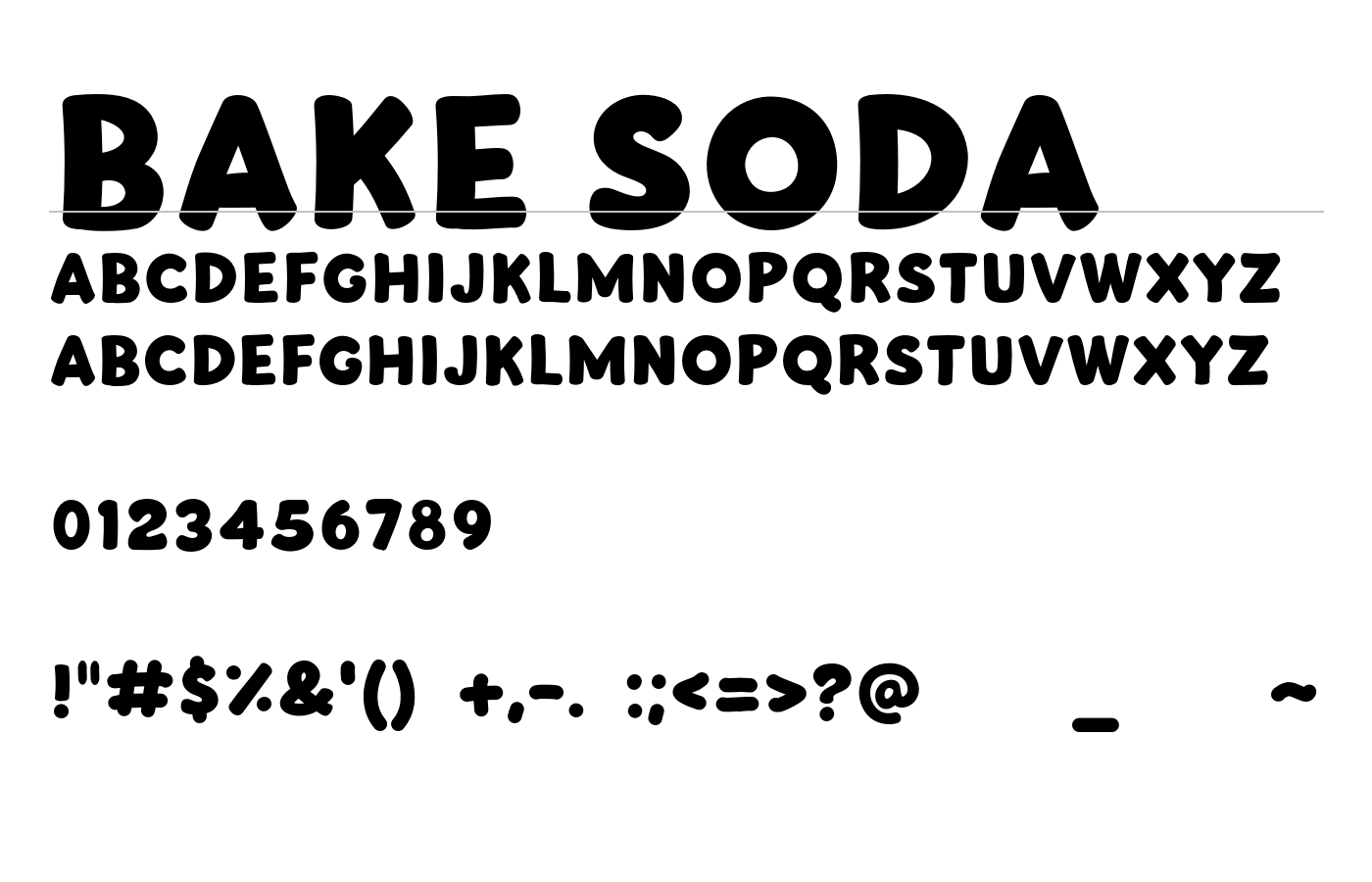
Bake Soda is a bold, rounded sans serif font with a playful and friendly feel. Its thick, soft strokes and consistent width make it highly legible and approachable, perfect for fun and informal branding, children's materials, or casual headlines. The font's lively personality works well where a warm and inviting tone is desired.
Bake Soda Font
About Bake Soda Font